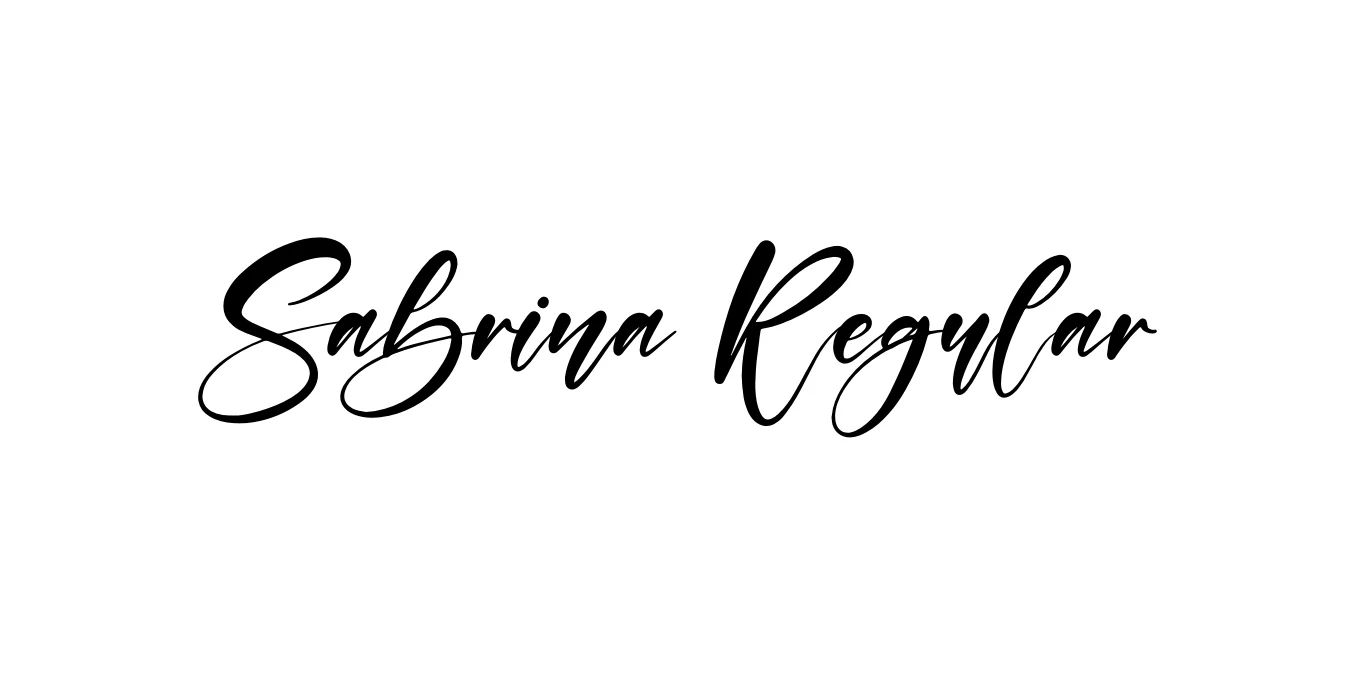
Sabrina Regular
Designed by Michael Hagemann
Sabrina Regular is a graceful and fluid script typeface that captures the essence of mid-century casual hand-lettering. Its design is characterized by flowing strokes and a rhythmic bounce, which provides a sense of warmth and personal touch to any typographic composition. The font draws inspiration from vintage advertising and cinematic title sequences, making it a nostalgic yet versatile choice for modern designers looking to evoke a sense of classic elegance.
Technical execution in Sabrina Regular focuses on seamless connections between characters, ensuring a natural handwriting flow. The letterforms are crafted with a balanced weight that maintains legibility even at smaller sizes, while its decorative flourishes shine in large-scale display applications. This font has become a staple for creative branding, editorial headers, and high-end event stationery due to its sophisticated yet approachable personality.
Sabrina Regular Best Uses
Ideal for invitations, envelopes, and place cards seeking a romantic feel.
Excellent for boutique logos, packaging, and high-end fashion labels.
Perfect for creating engaging quotes, stories, and stylish overlays.
Adds a sophisticated and human touch to magazine headlines and feature stories.